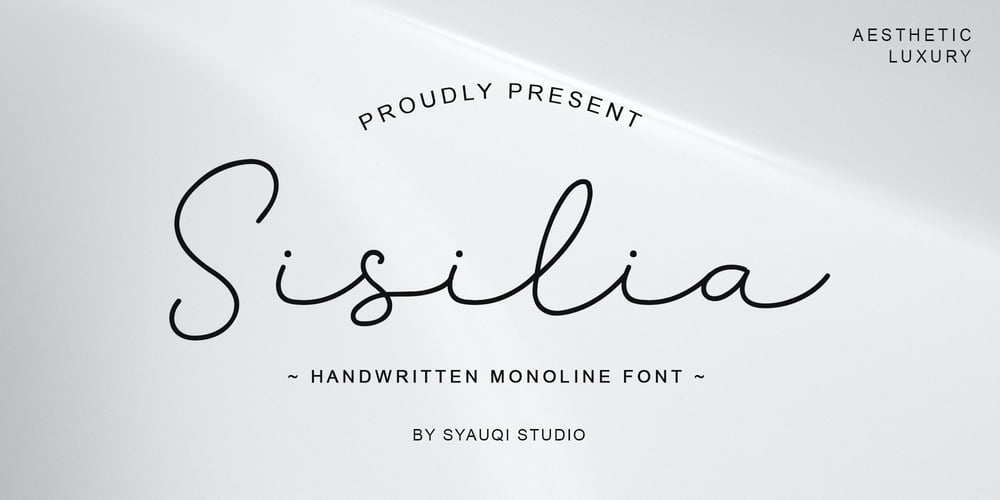
Sisilia Font Family was designed by Muhammad Asroful Umam and published by Syauqi Studio. Sisilia contains 1 styles and family package options. Introducing, this is our newest product, we call it Sisilia.Sisilia Script style – a new modern & fresh script with a handwritten and script style make this font looks elegant, natural, stylish and perfect for any awesome projects that need handwriting taste.Sisilia is very good to be used in:photography, watermark, social media posts, advertisements, logos & branding, invitation, product designs, label, stationery, wedding designs, product packaging, special events or anything that need handwriting taste.Features:- Uppercase & Lowercase- Number & Punctuation- Ligature & Stylistic alternate- Multilingual SupportTo fully access the font’s features, we recommend using programs that support OpenType features. This will allow you to access glyphs directly on the same panel without copy/pasting each glyph. Additionally, the OpenType panel allows you to turn on standard ligatures, which can automatically change letters for available ligatures.Thank you, Best regardsSyauqi Studio